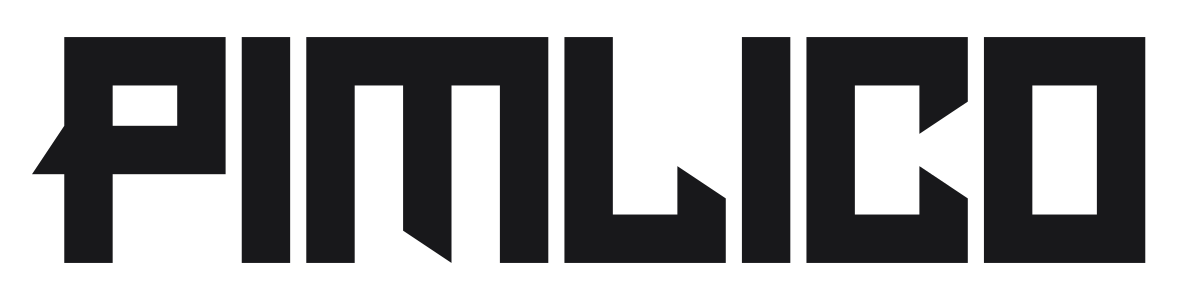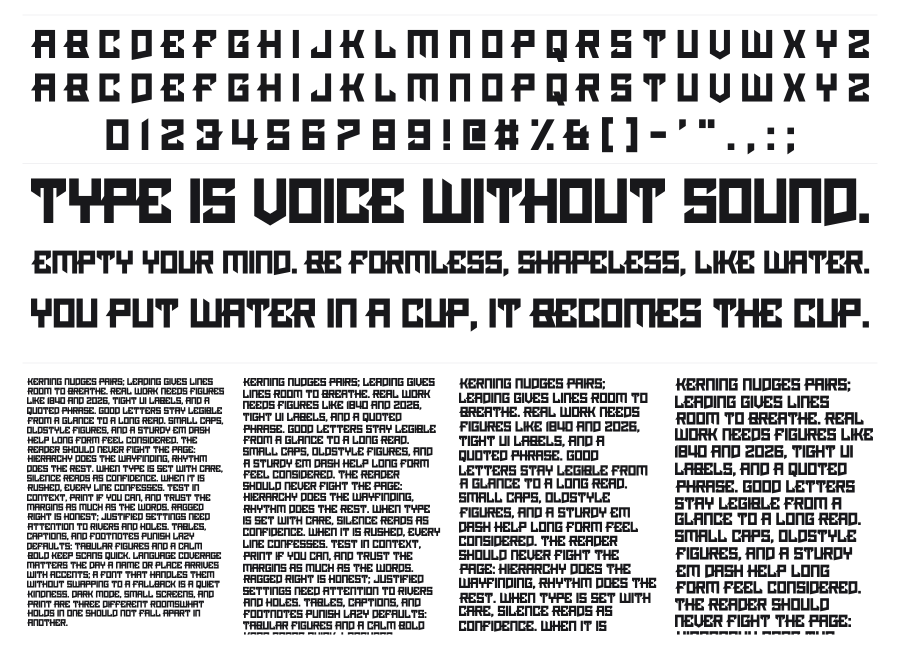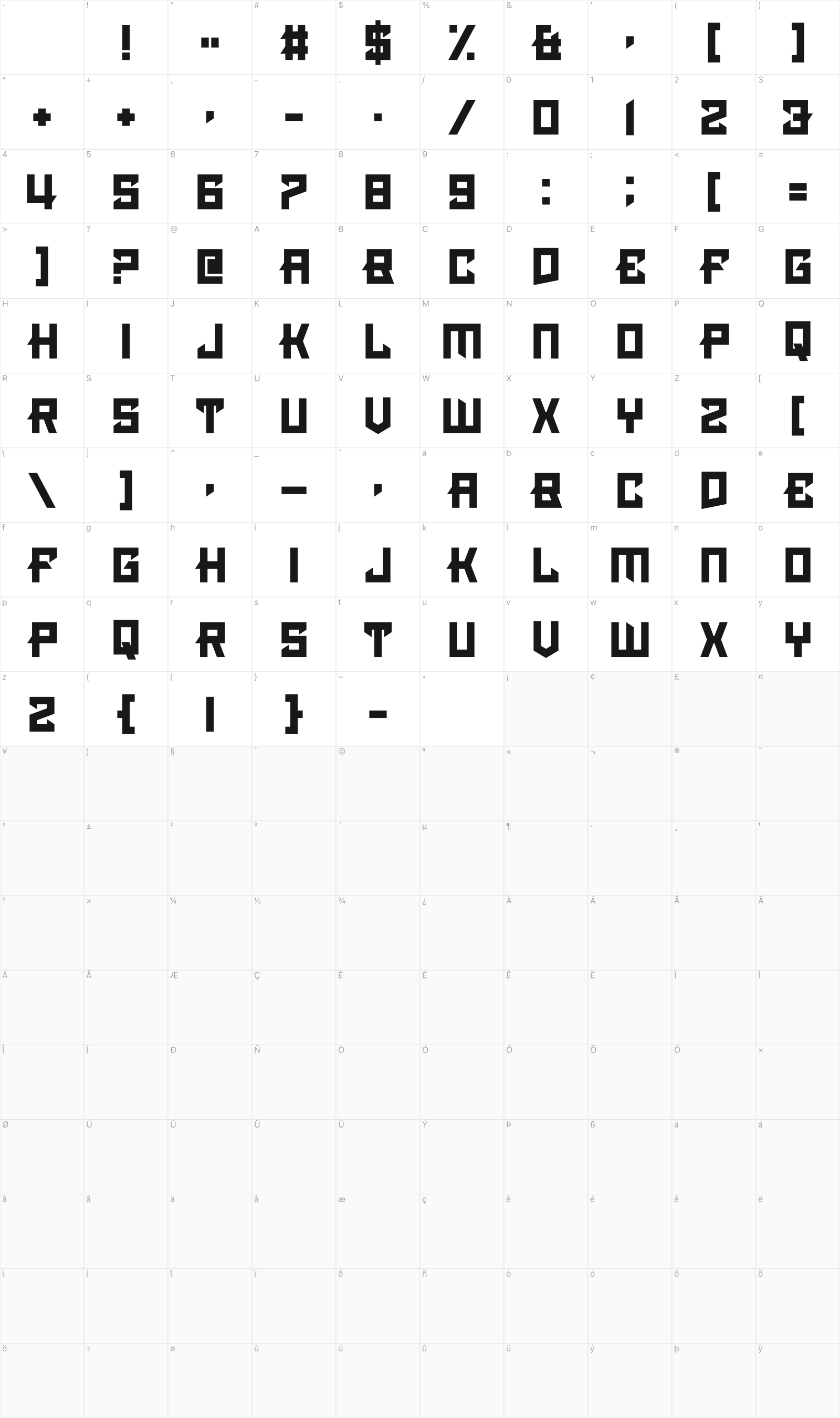
Pimlico
Pimlico is a heavy modular display face built from interlocking rectangular blocks with sharp diagonal cuts at joints and terminals. Every character is constructed on a strict grid, producing a dense, industrial texture that reads as mechanical and imposing. It suits headline work where impact and visual weight are the point.